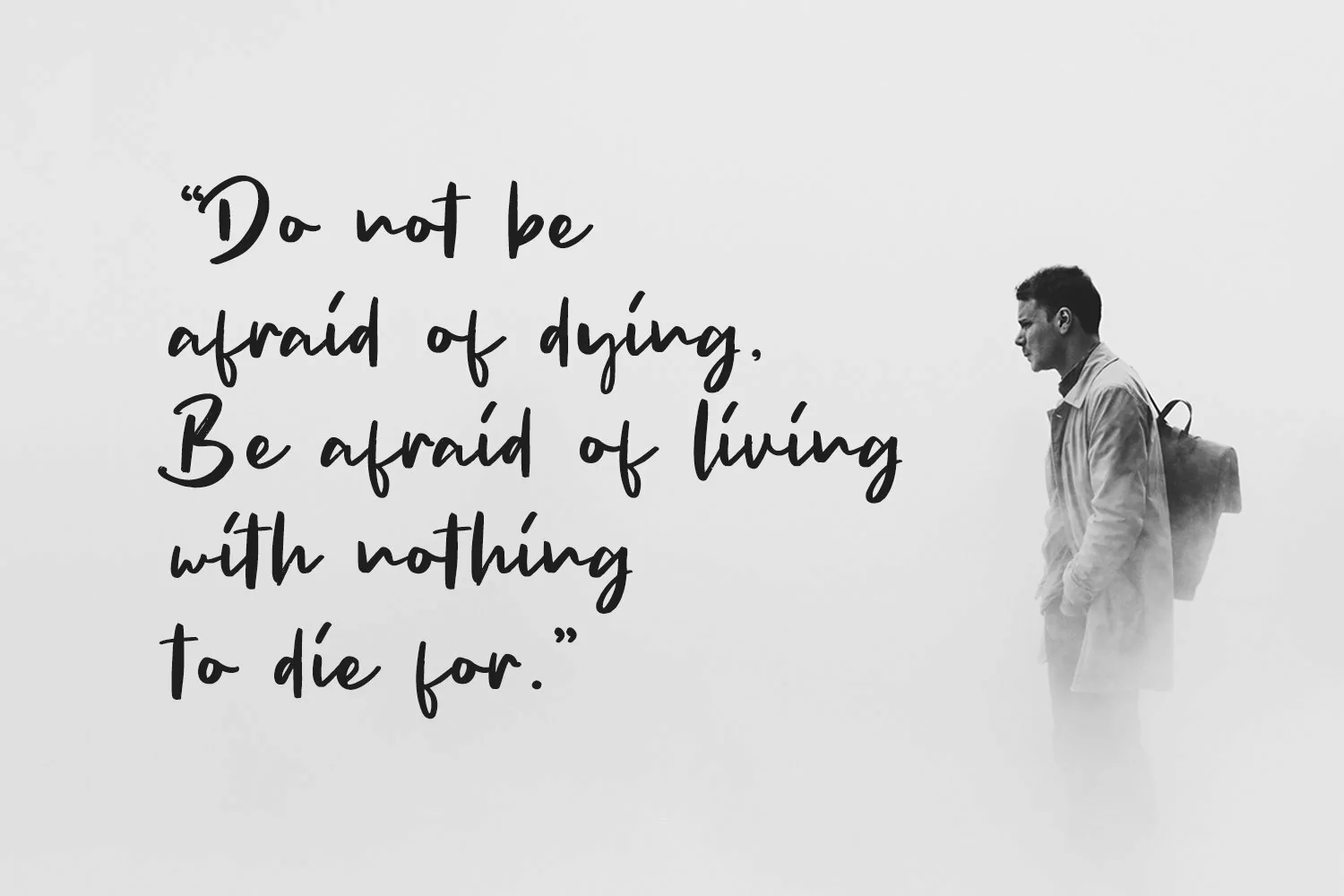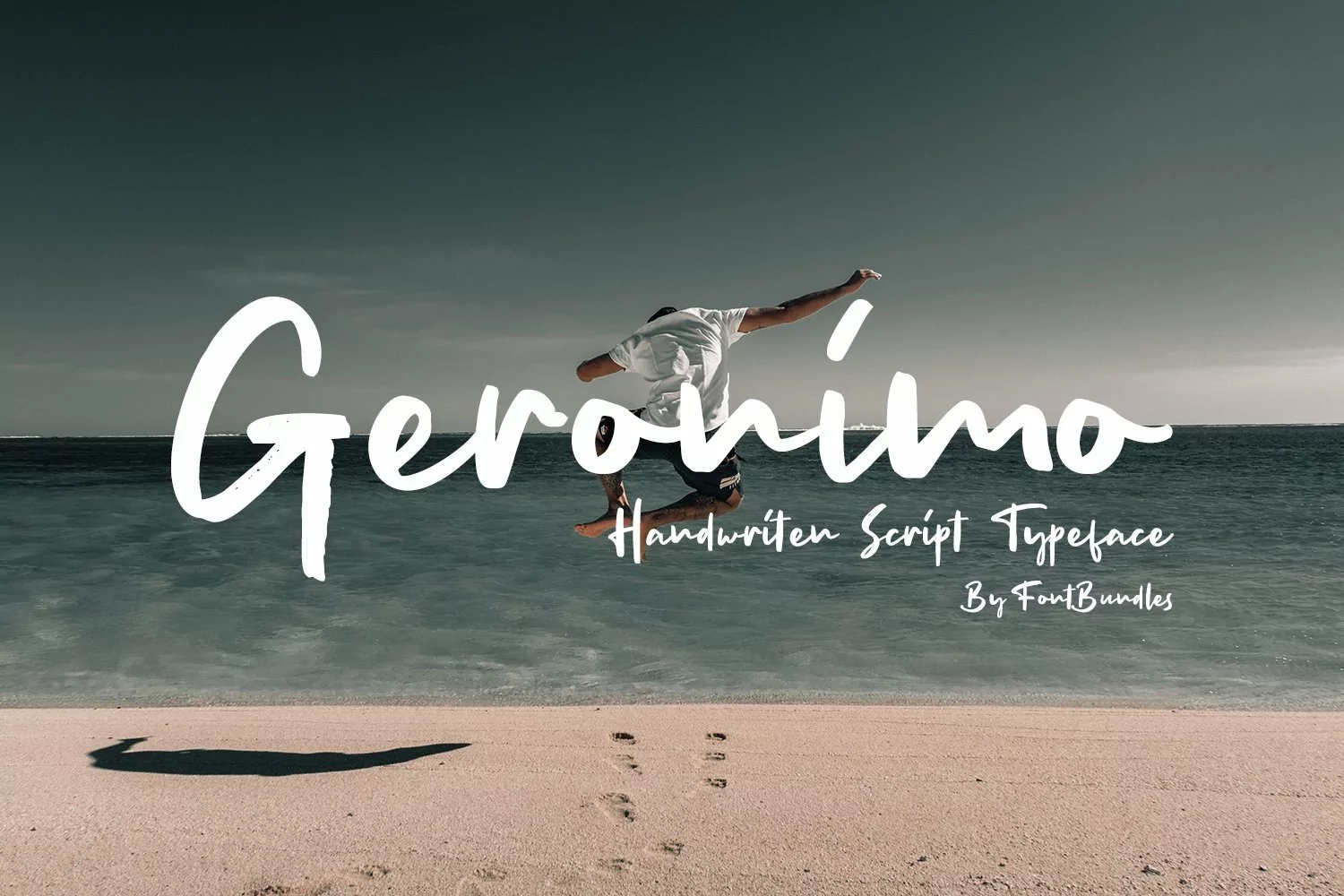
Web Font Geronimo
Geronimo is a handwriten script typeface. Ideal for logos, handwritten quotes, product packaging, header, poster, merchandise, social media & greeting cards.